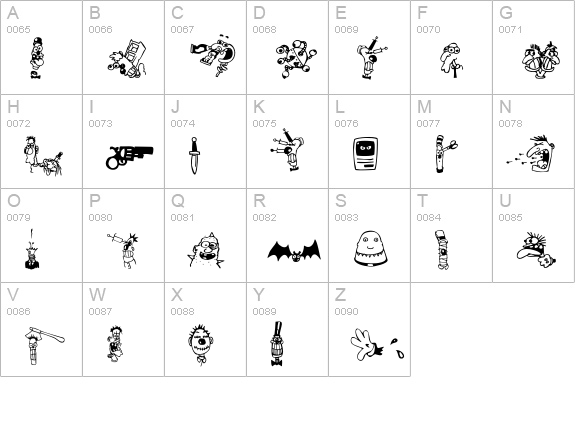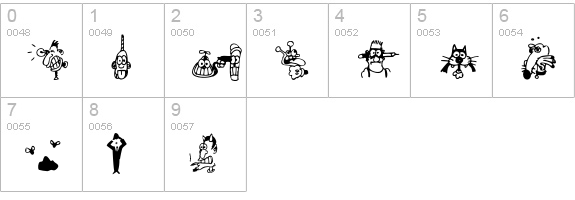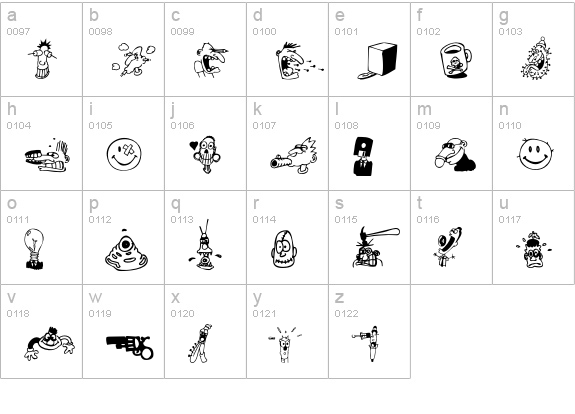
AIMoreHedsTwo Font Details
The AIMoreHedsTwo font is a stunning display typeface that exudes elegance and sophistication. With its unique design and intricate details, this font is perfect for adding a touch of luxury to your projects. Whether you're creating invitations, logos, or branding materials, AIMoreHedsTwo will make your designs stand out. What's even better is that AIMoreHedsTwo is available for free download at FontsMarket.com. This means you can easily access this beautiful font and use it in your creations without any cost. Don't miss out on the opportunity to elevate your designs with the exquisite AIMoreHedsTwo font. Download it today and take your projects to the next level!